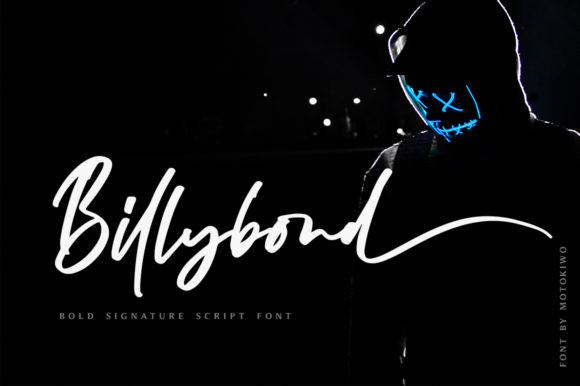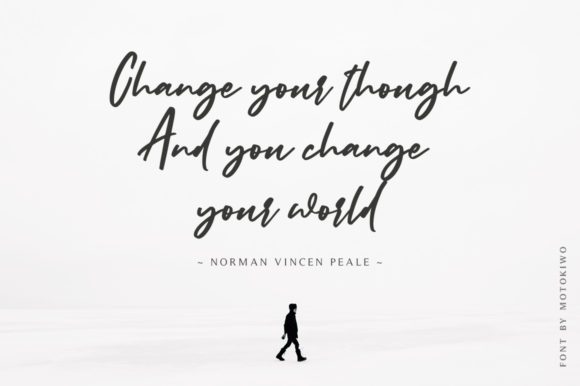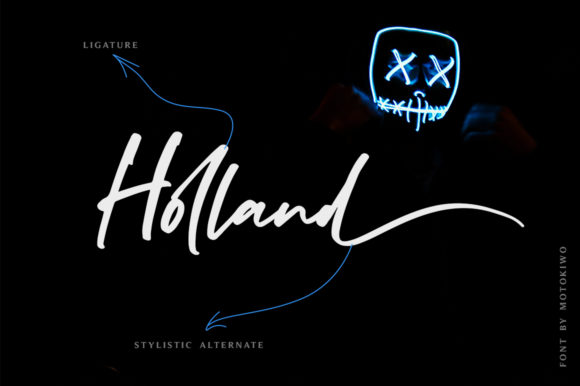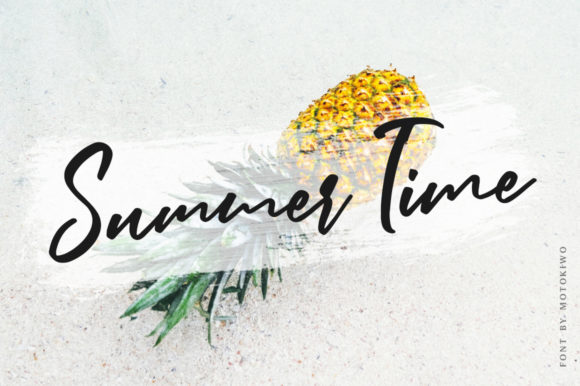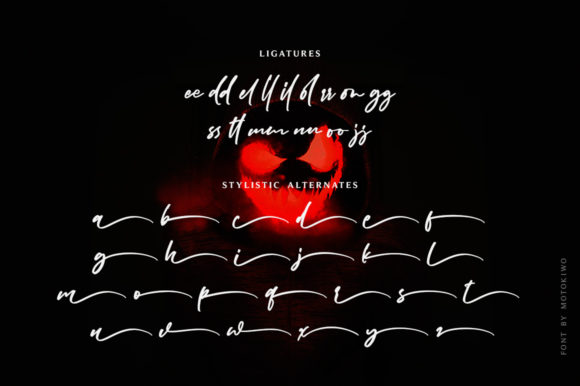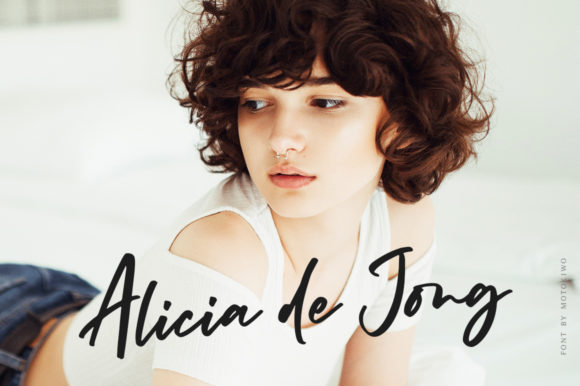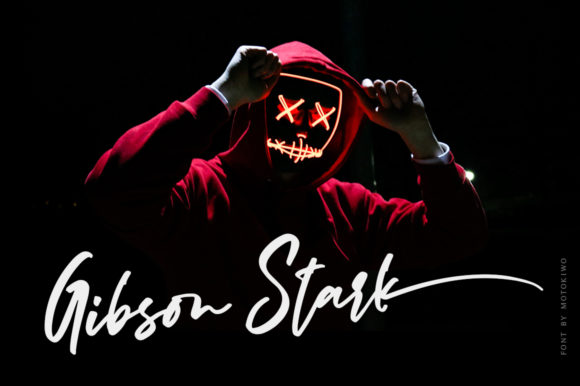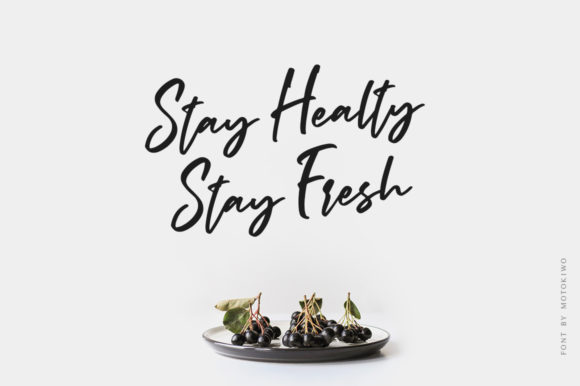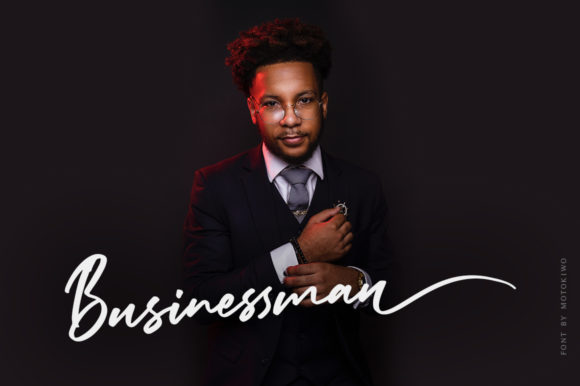
Billybond Font
About Billybond Font
Billybond is a bold signature font with stunning ligatures and ending alternates. Fall in love with its gorgeous swashes that are all PUA encoded!